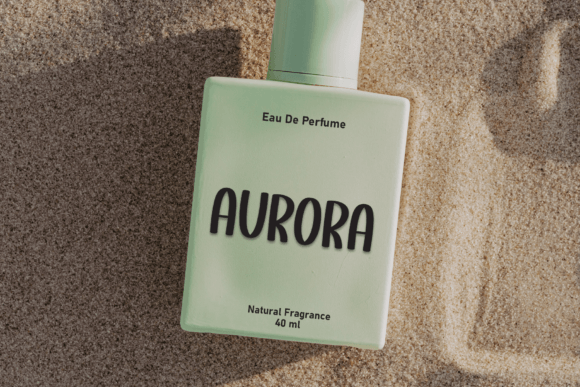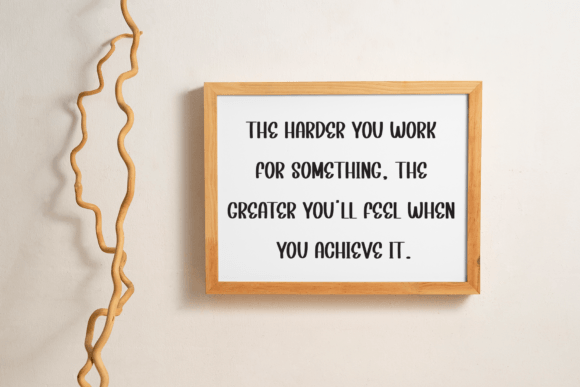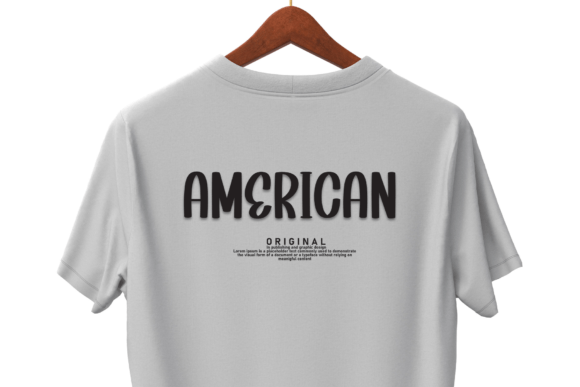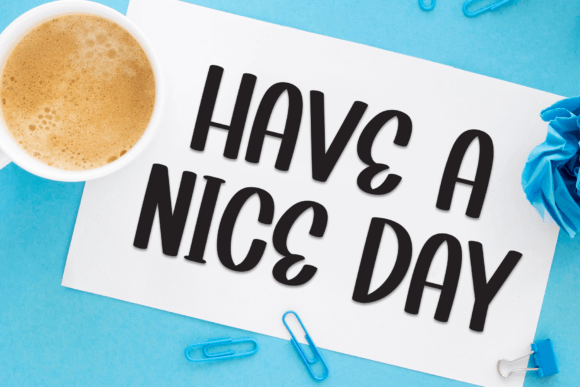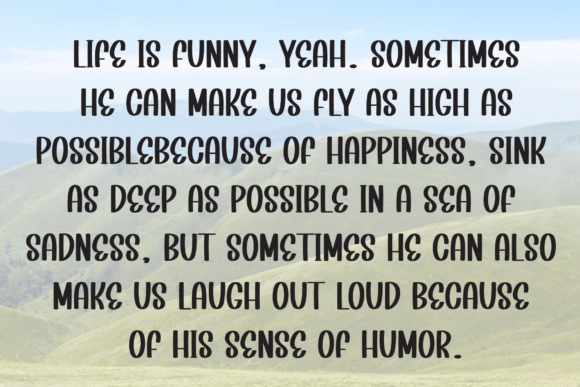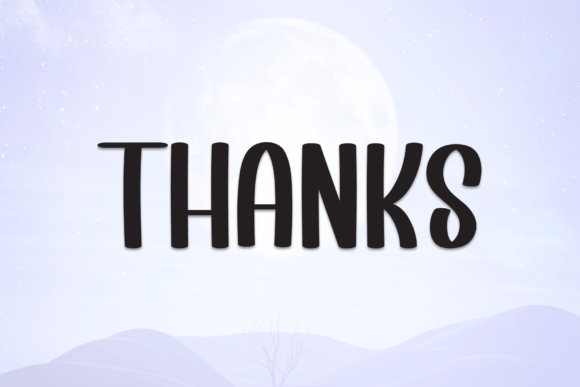
Introduction to Moon Shine Font
Do you remember that moment when you stumbled upon the perfect design element for your creative project? The one that brought everything together and made it shine? For designers, finding the right font can be a game-changer. It’s the difference between a good design and a great one. And that’s exactly what we’re going to explore today – the Moon Shine Font.
This sweet and friendly handwritten font has been a favorite among designers for its natural and unique style. Its versatility makes it incredibly fitting to a wide range of designs, from elegant wedding invitations to playful children’s books. With its high quality and transparent background, Moon Shine Font is a valuable addition to any designer’s toolkit.
Key Features of Moon Shine Font
- High-quality, free download font perfect for creative projects requiring a unique touch.
- Features a transparent background, allowing for seamless integration with any design element.
- Includes a comprehensive character set, covering a wide range of languages and characters.
- Designed with a high resolution of 300 DPI, making it ideal for print and digital applications.
- Comes in a single font size, making it easy to use and customize for various creative projects.
Honest Review: Moon Shine Font
As a designer, I’m always on the lookout for high-quality design resources that can elevate my creative projects. Recently, I stumbled upon the Moon Shine Font, and I’m excited to share my honest review.
- Unique and creative design: The Moon Shine Font has a distinctive, dreamy quality that sets it apart from more traditional fonts.
- High-quality design: The font is well-designed and looks great on both transparent backgrounds and solid colors.
- Limited flexibility: The font is designed specifically for creative projects, but it may not be suitable for more formal or professional applications.
- No bold or italic styles: While the font is well-designed, it would be nice to have bold and italic styles available for added versatility.
Overall, I’m impressed with the Moon Shine Font. It’s a great addition to any designer’s toolkit, and I appreciate the high-quality design and free download option. With a few minor limitations, I’d highly recommend this font for any creative project that requires a unique and eye-catching design.
How to Use Moon Shine Font
Tips for Getting the Most Out of Moon Shine Font
Experiment with different font sizes and styles to achieve the desired effect. Use the font in combination with other design elements to create a visually appealing design. Consider using a transparent background to make your text stand out.
The Moon Shine Font is perfect for creative projects, such as graphic design, typography, and digital art. It’s also great for use in presentations, documents, and websites. With its high-quality design and free download, this font is a valuable design resource for anyone looking to add a touch of elegance to their work.
Q: Is the Moon Shine Font suitable for print or digital projects?
The Moon Shine Font is designed to be versatile and can be used in both print and digital projects. Its high-quality design ensures that it looks great on various mediums, from business cards and brochures to websites and mobile apps. Its transparent background makes it easy to integrate into your design, allowing you to achieve a seamless look and feel.